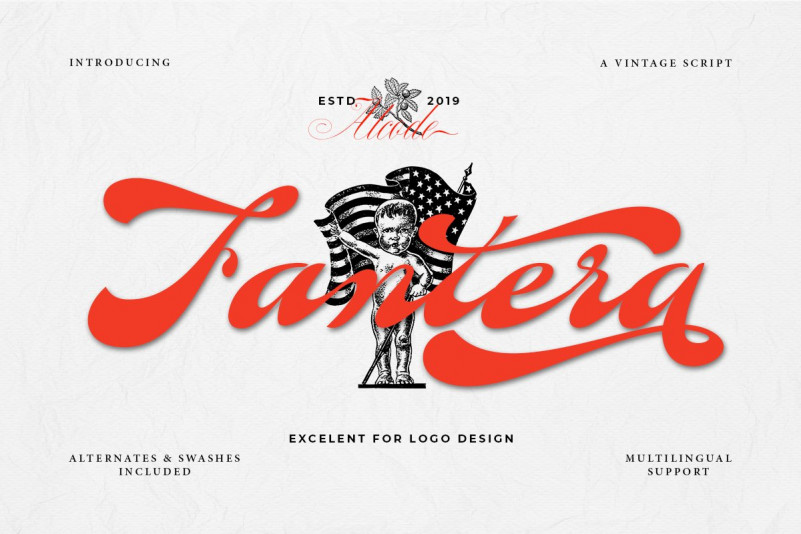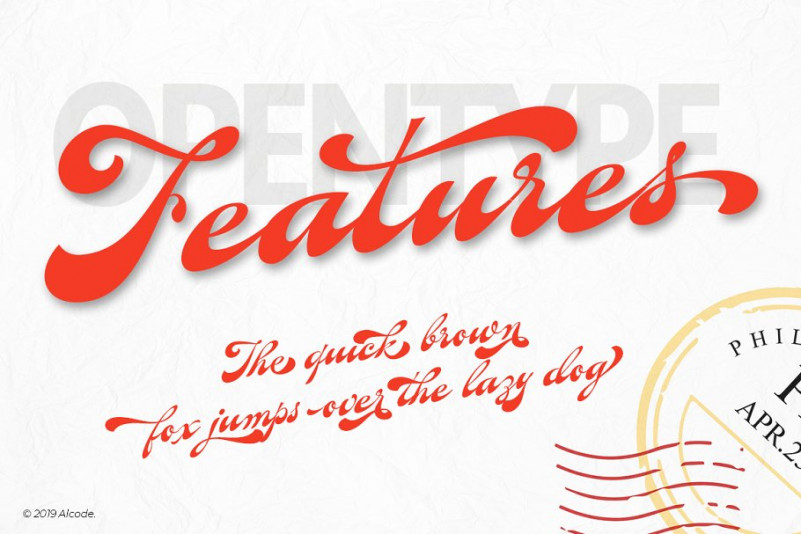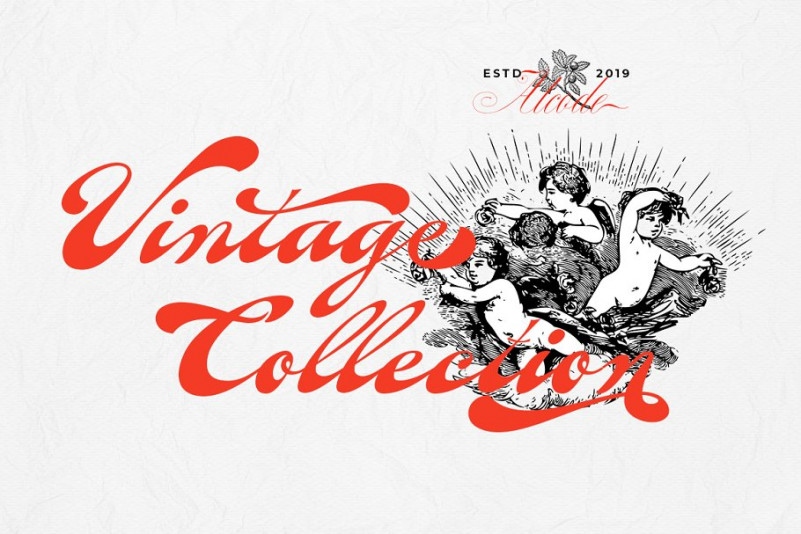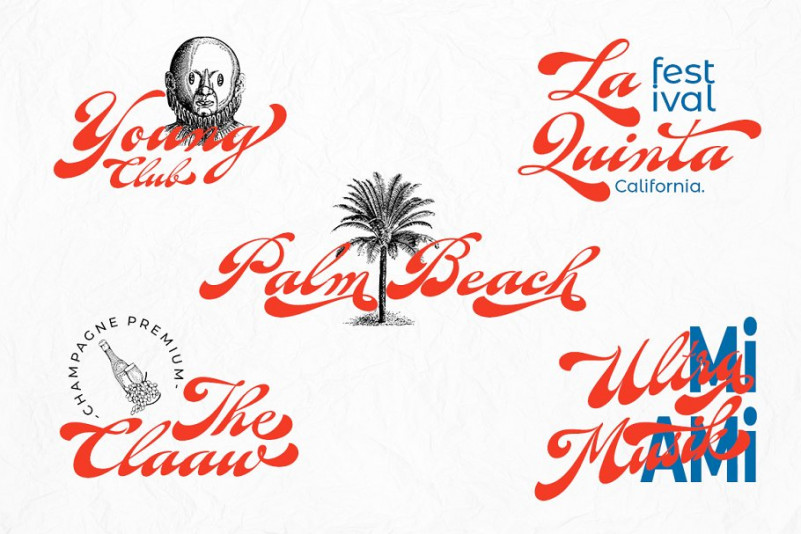
Fantera Vintage Script Font
Fantera Font is a script font for branding, created by Alcode. This is a beautiful script inspired by handlettering works. It’s will give your design works more stylish and artistic. It’s a script typeface vintage style, every letter has been carefully crafted to make your text look beautiful. This font is perfect for logos, badges, shirts, labels, clothing designs, etc.
Fantera, enjoy the wealth of OpenType features and let elegant fun and pleasure make you happy and increase your creativity! You can use this font very easily.